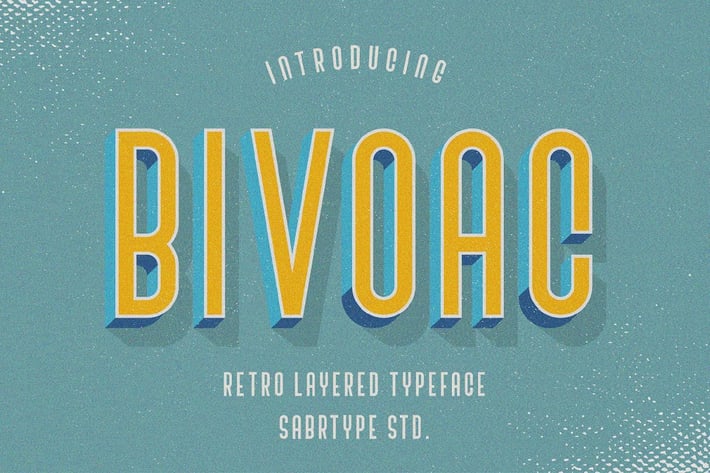
Bivoac Layered Font
Bivoac is a bold retro layered font family designed for vintage logos, 3D type effects, and standout poster design. With 5 stackable layer styles Regular, Outline, Shadow, Dark, and Drop Shadow, you can mix and match layers to create stunning dimensional lettering with full color control.
- 5 layered font styles: Regular, Outline, Shadow, Dark, Drop Shadow
- Stackable layer system, combine styles for 3D retro effects
- Bold condensed letterforms with vintage americana character
- Uppercase & lowercase with numerals and punctuation
- Logo and brand identity designers creating vintage or retro identities
- Poster and print designers working on americana, travel, or heritage themes
- Apparel and merchandise designers who want bold layered typography
- Social media designers and content creators looking for eye catching 3D display text